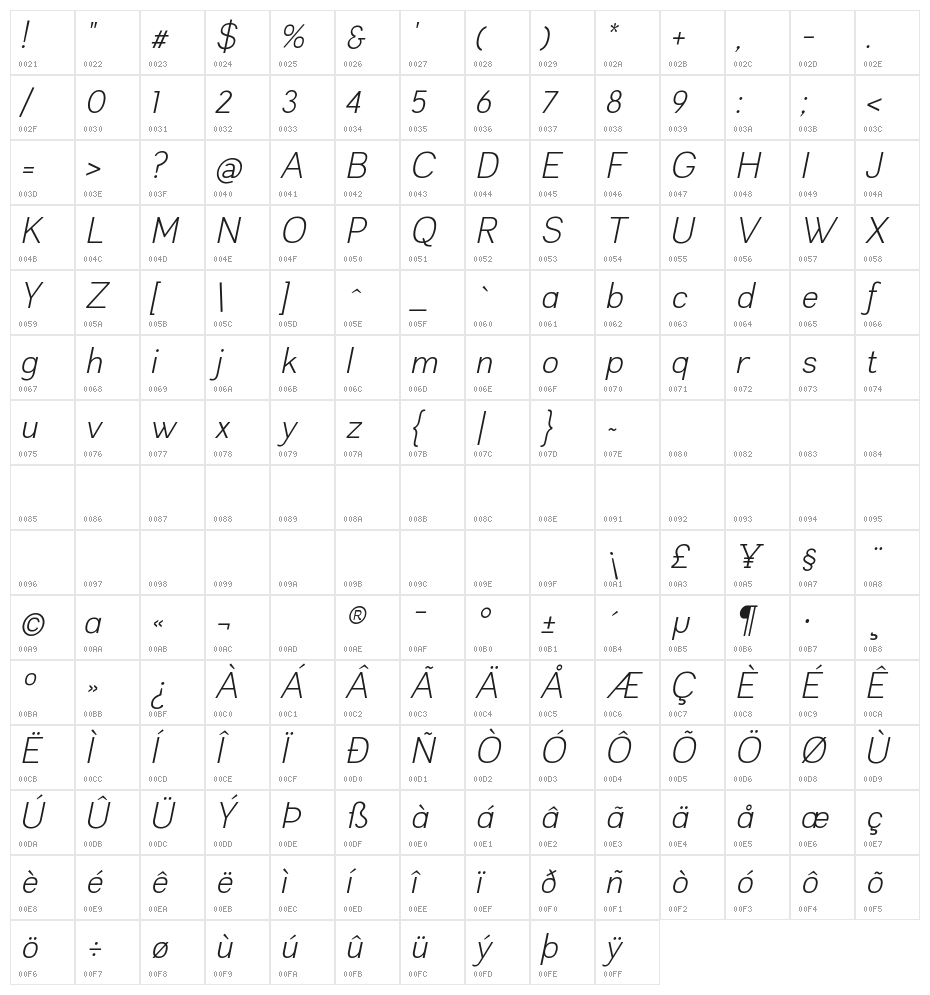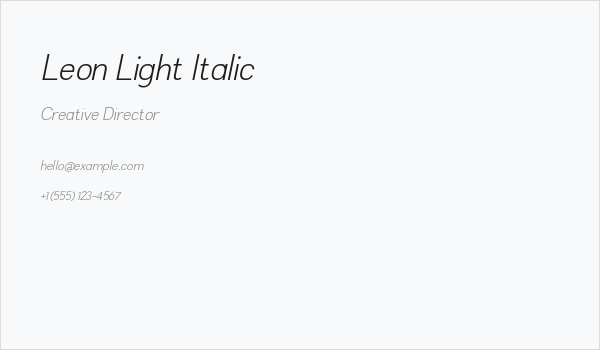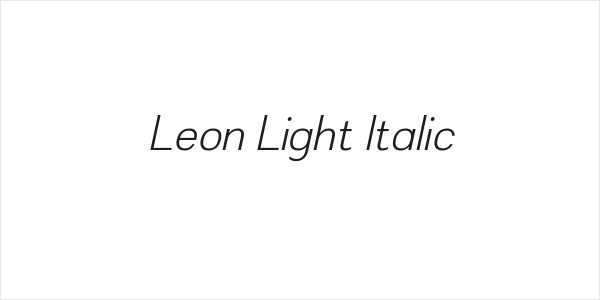
Leon Light Italic Font
Leon Light Italic Description
This font exhibits a sleek and modern design with a light and airy feel. The characters are slightly slanted, giving it an italicized appearance that adds a touch of elegance and fluidity. The strokes are thin and consistent, contributing to a clean and minimalist aesthetic. The spacing between characters is balanced, ensuring readability while maintaining a sophisticated look. The font's overall style is contemporary, making it suitable for a variety of modern applications. Its simplicity and clarity make it versatile for both digital and print media.
| Proposed Projects | Ideal for branding, editorial design, websites, and minimalist graphic design projects. |